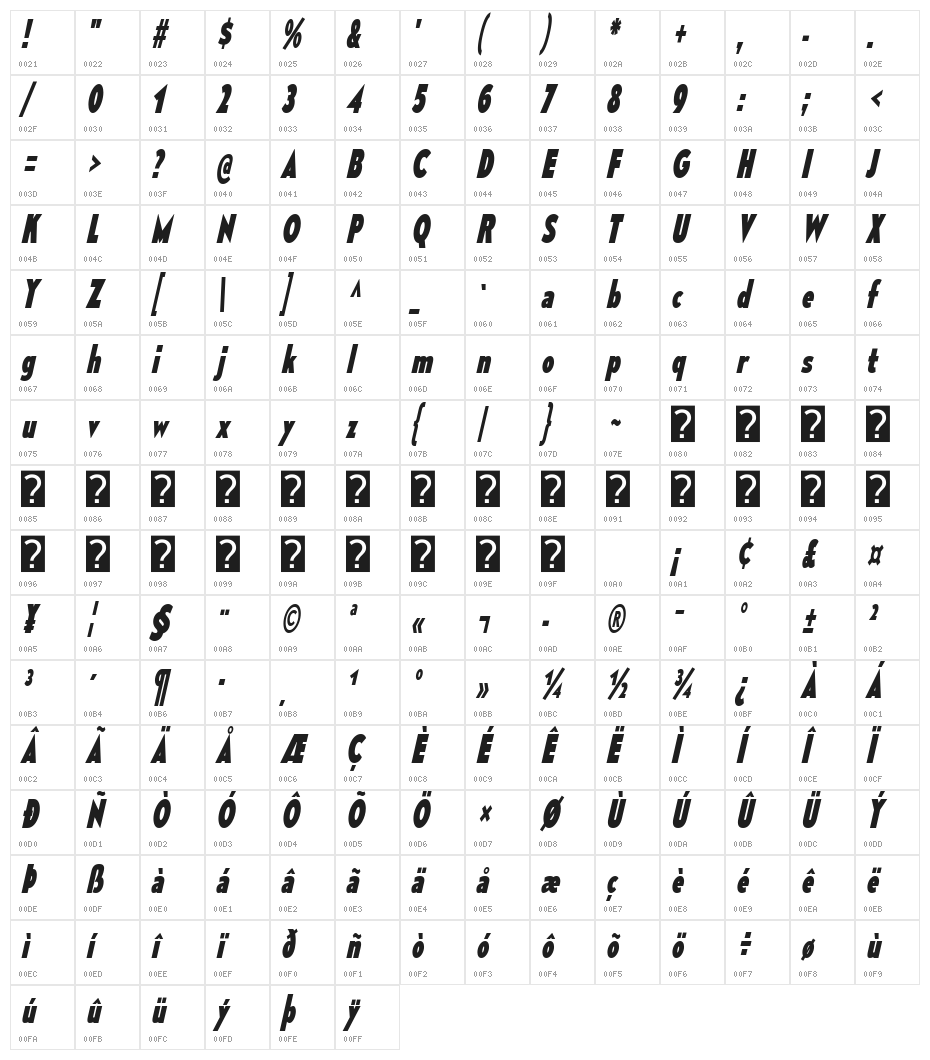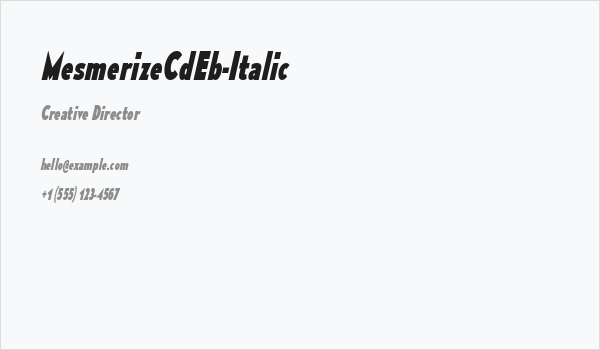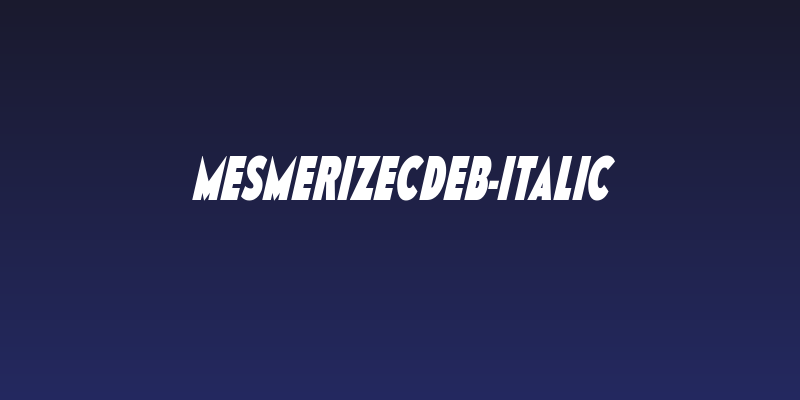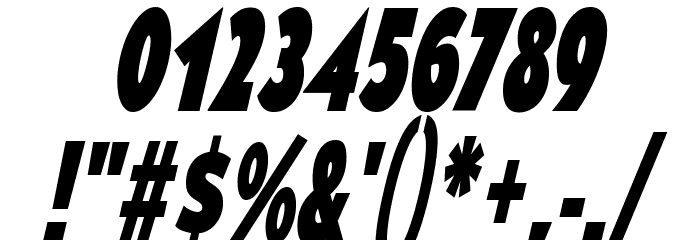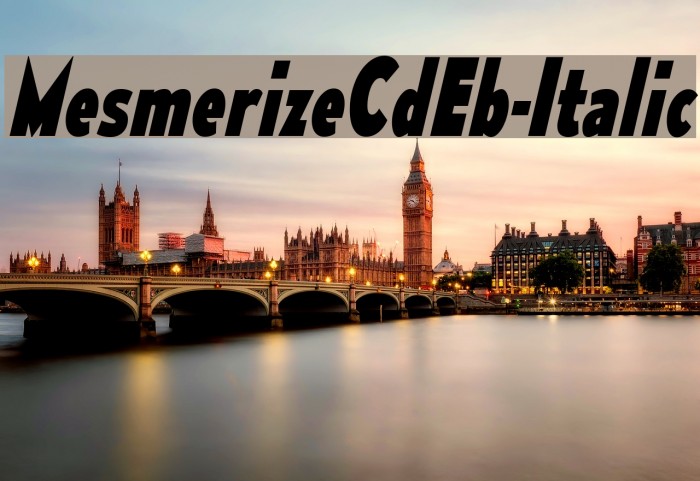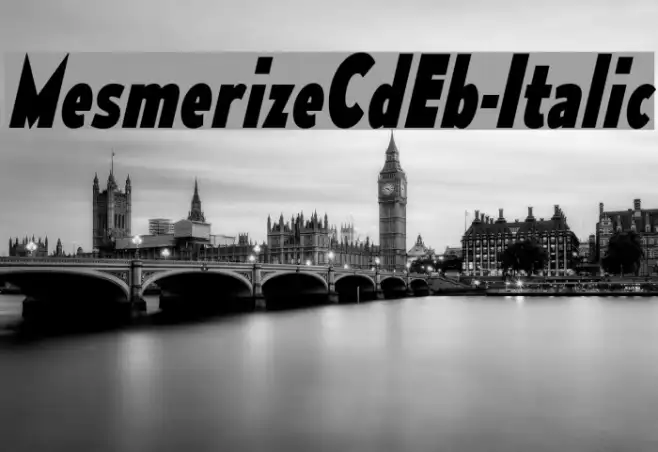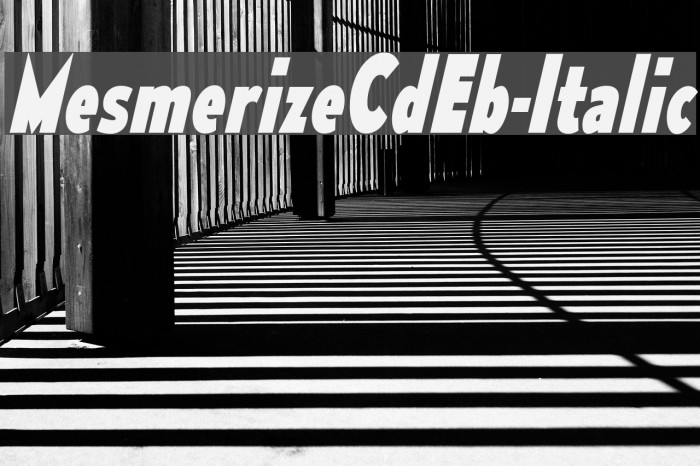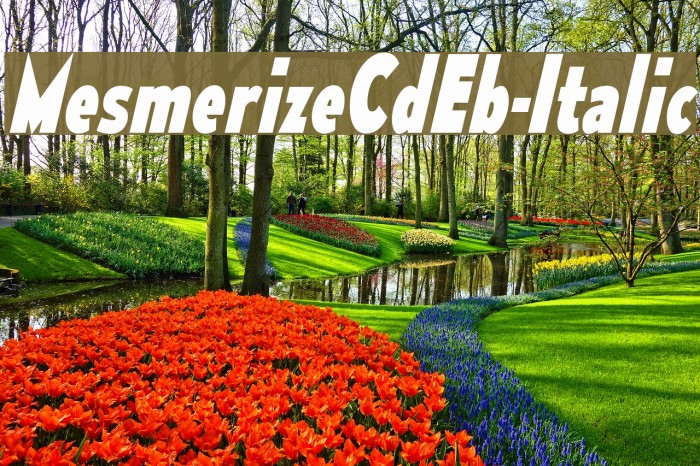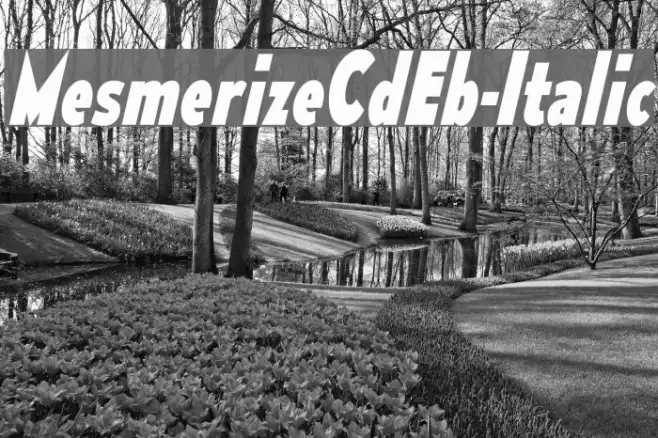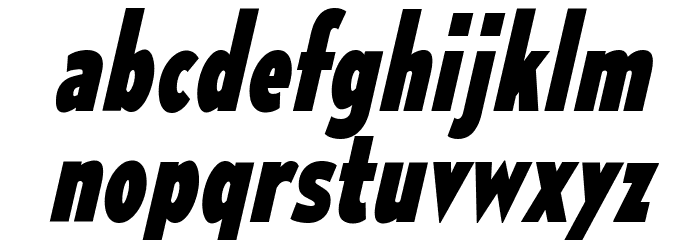
MesmerizeCdEb-Italic Font
MesmerizeCdEb-Italic Description
This font features a bold and dynamic style with a distinct italic slant, giving it a sense of movement and energy. The characters are thick and robust, with a slightly condensed appearance that enhances its boldness. The uppercase and lowercase letters maintain a consistent weight, providing a harmonious look across the alphabet. The numbers and special characters are equally bold, ensuring readability and impact. The overall design is modern and assertive, making it suitable for projects that require a strong visual presence.
| Proposed Projects | Ideal for headlines, posters, branding, and advertising materials that need a strong and energetic typeface. |